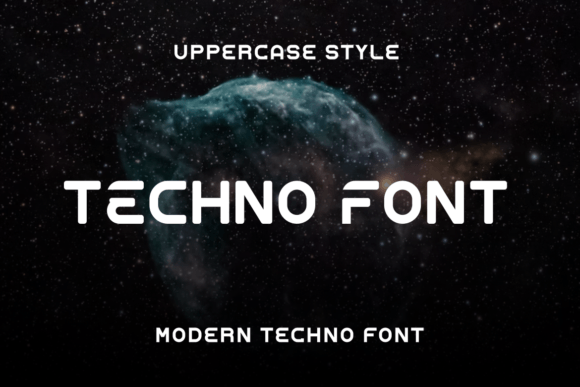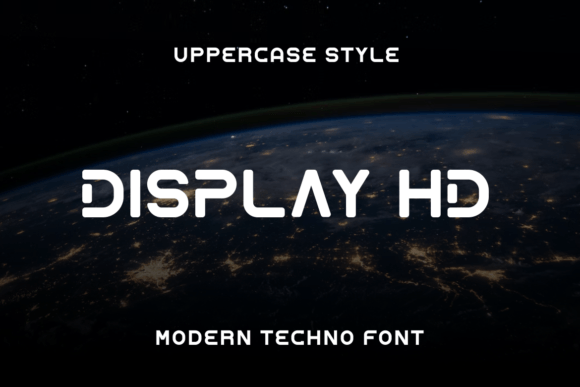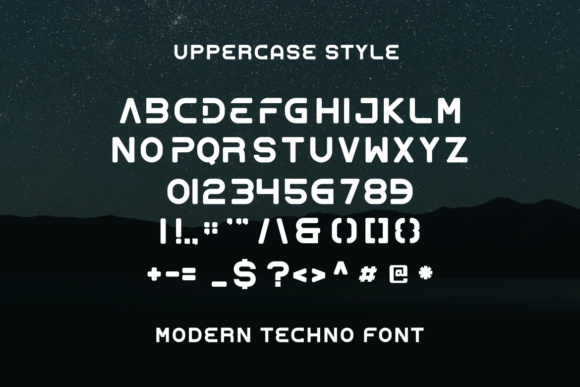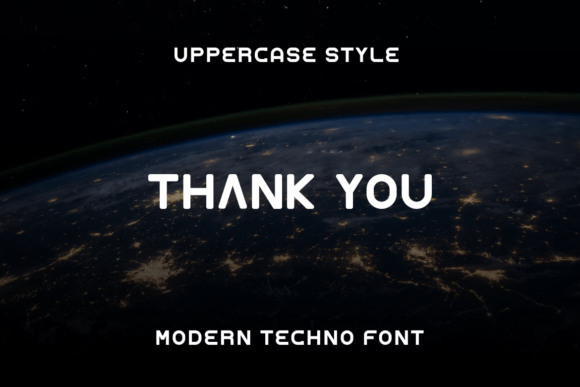
Introduction to Execiter Font
Imagine you’re working on a branding project, and you need the perfect font to make your logo stand out. You’ve spent hours browsing through design resources, but nothing seems quite right. That’s when you stumble upon a bold and authentic display font that changes everything – the Execiter Font.
This modern font is a game-changer for designers like you. Its high-quality design makes it perfect for any creative project, from logos to t-shirt printing. With the Execiter Font, you can create stunning visuals that grab attention and leave a lasting impression. Whether you’re working on a personal project or a client’s branding initiative, this font is an invaluable resource that will elevate your designs to the next level.
Key Features of Execiter Font
- With a unique blend of modern and vintage elements, Execiter Font is perfect for adding a touch of elegance to any design project.
Honest Review: Execiter Font
I recently stumbled upon the Execiter Font while searching for a free download to enhance my creative project. I was immediately drawn to its high quality and sleek design.
- Unique and modern design style that sets it apart from other fonts.
While I appreciate the Execiter Font’s features, I do have a few reservations. The font’s design can be quite bold and overpowering, making it challenging to pair with other fonts.
Additionally, the font’s limited character set may not be suitable for projects requiring extensive typing.
Overall, I’m impressed with the Execiter Font’s potential to elevate creative projects. However, its limitations should be considered before making it a core design element. If used judiciously, it can be a valuable addition to any designer’s toolkit.
The Execiter Font is perfect for creating designs for a variety of creative projects, including logos, brochures, and business cards. You can also use it to create free downloadable resources, such as printable art and quotes.